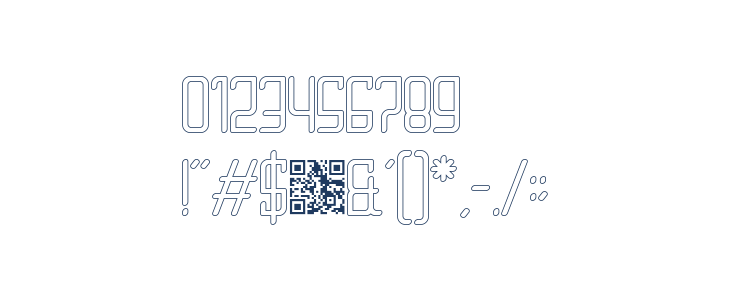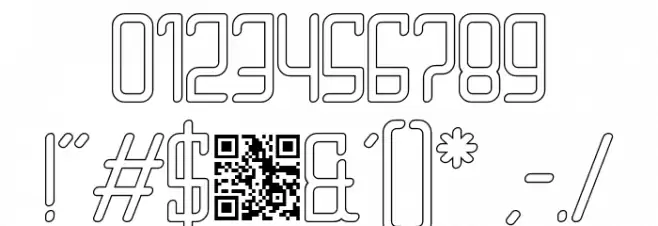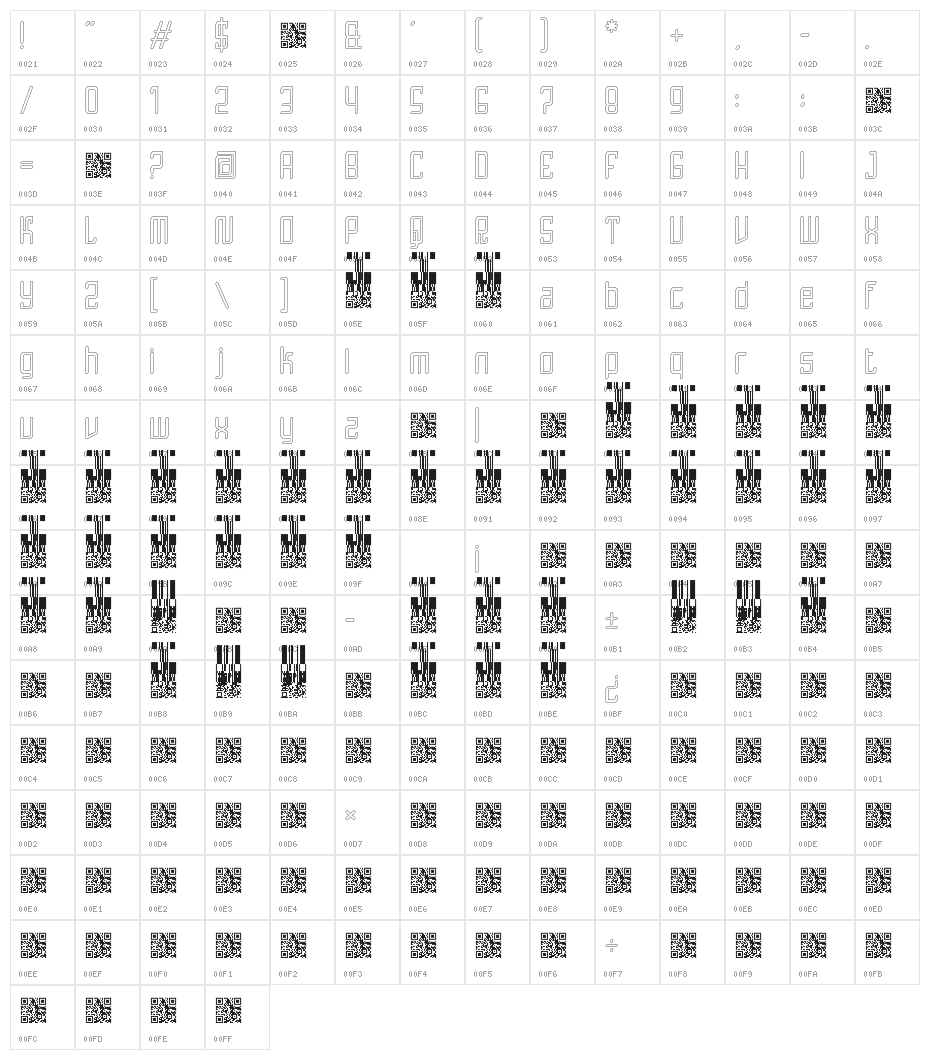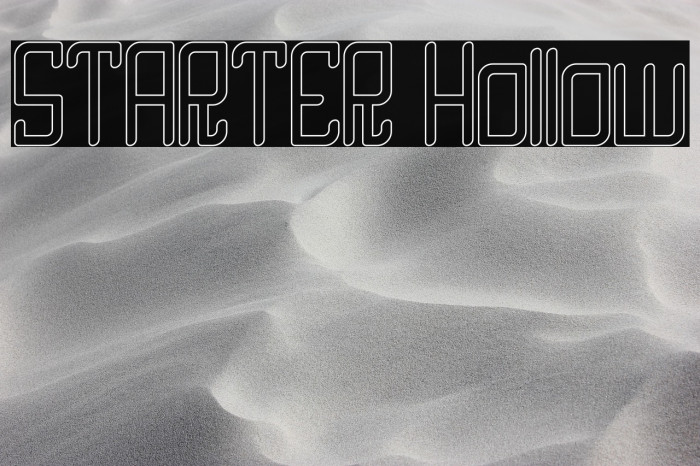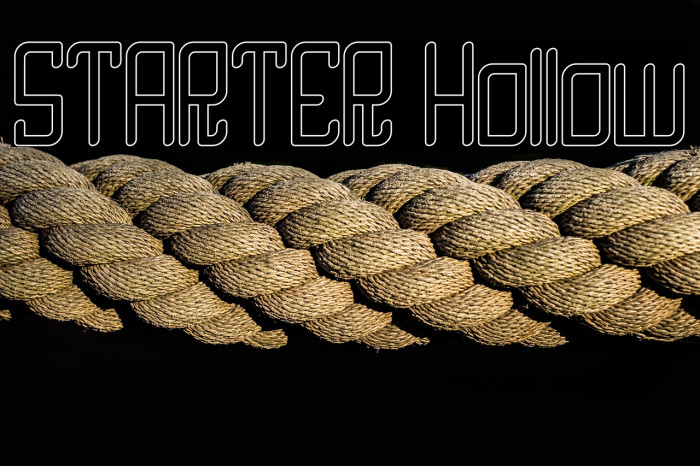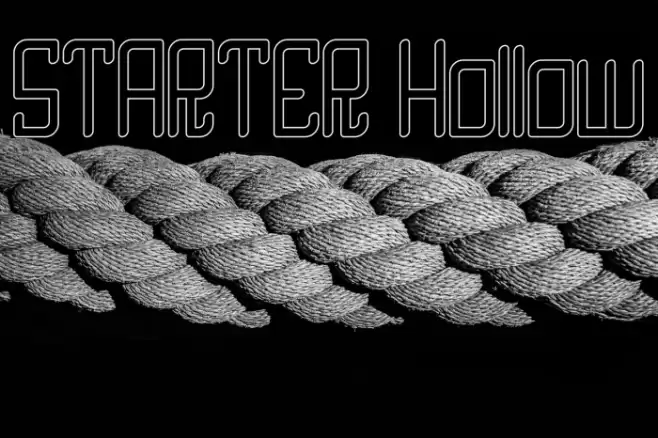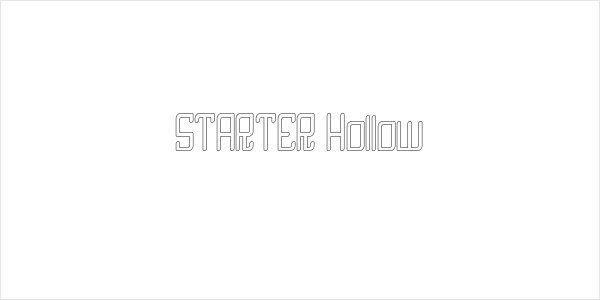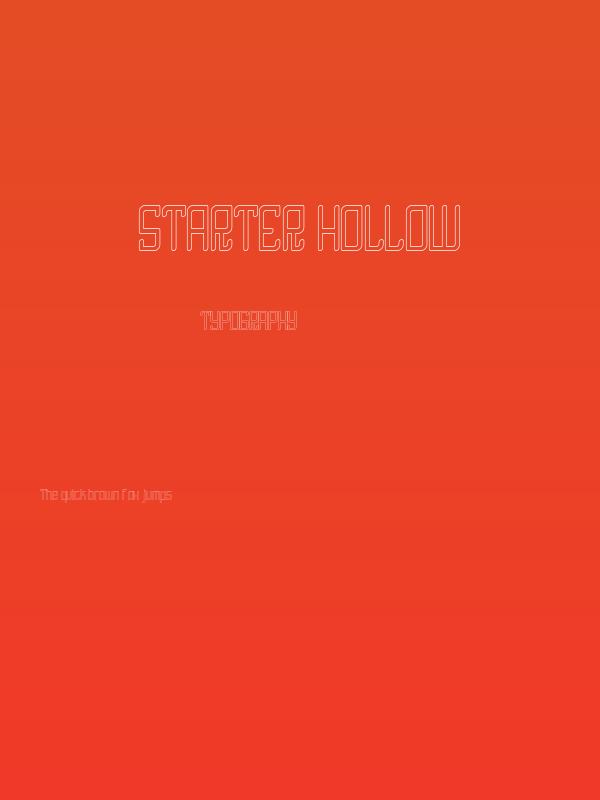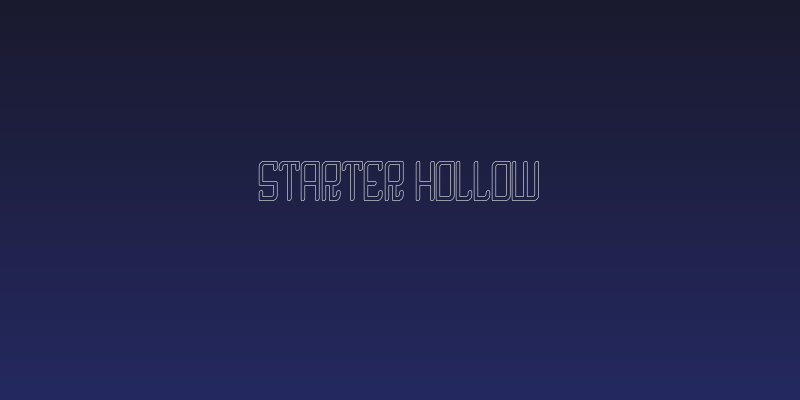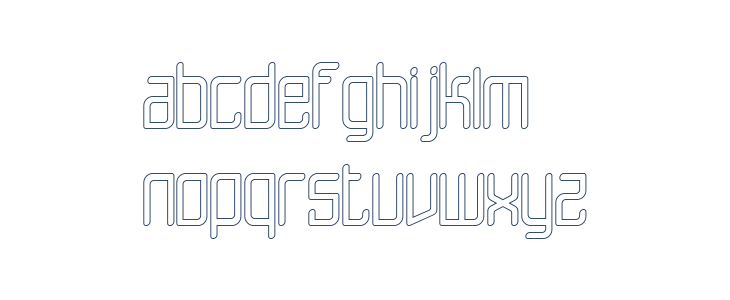
STARTER Hollow Font
STARTER Hollow Description
This font features a unique hollow design, characterized by its outlined, geometric letterforms. The uppercase and lowercase letters maintain a consistent structure, with rounded corners and a modern, futuristic appearance. The numerals and special characters follow the same hollow style, providing a cohesive look across all glyphs. The font's open design makes it highly legible, while the distinct outline adds a decorative touch. It's ideal for projects that require a modern and eye-catching typeface.
| Proposed Projects | Ideal for branding, posters, digital media, and any project needing a modern, standout typeface. |